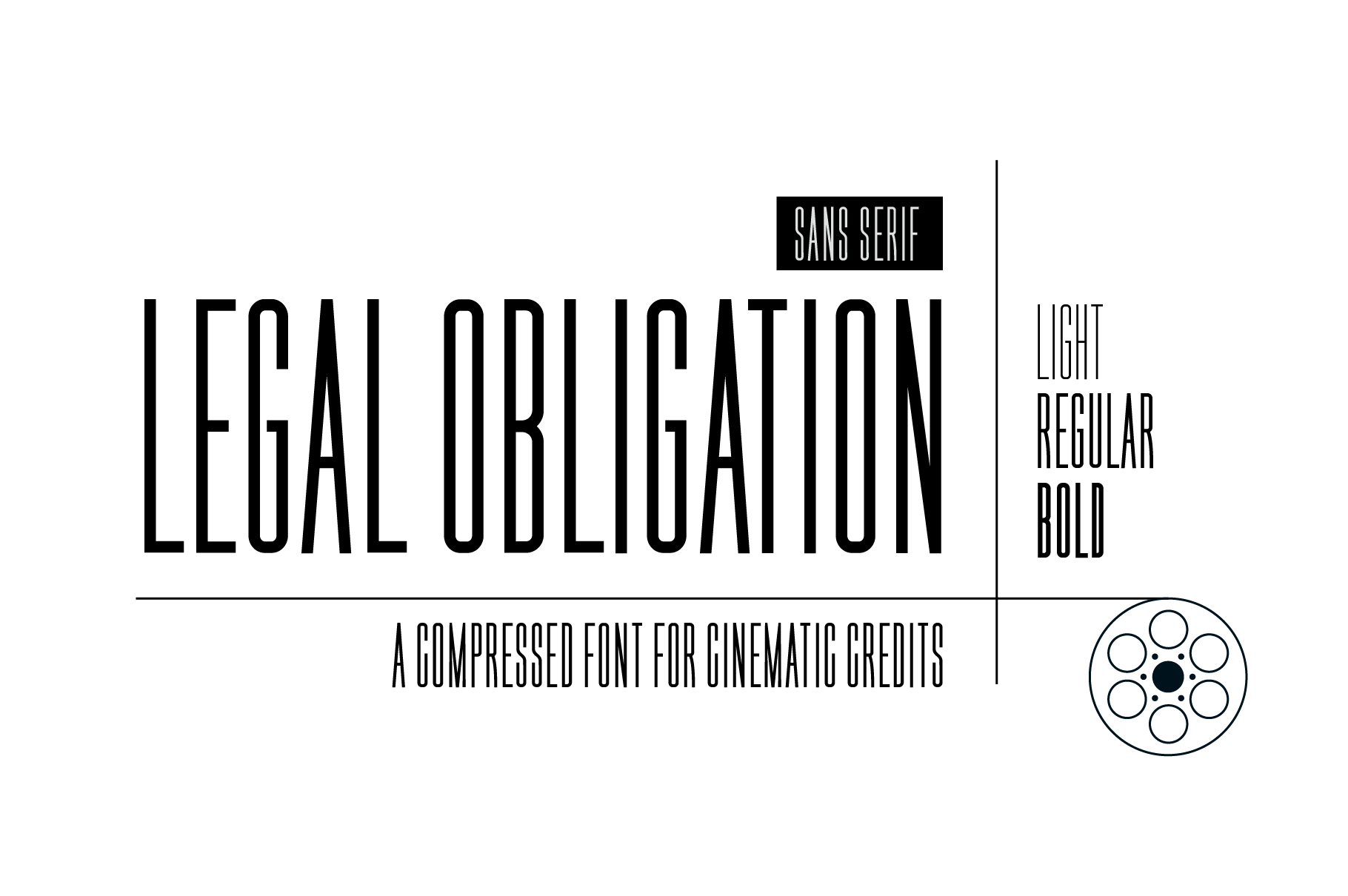
A dedicated compressed Sans Serif font for movie poster credit blocks and cinematic title designs.
- Legal Obligation Sans Serif
- Light, Regular and Bold Weights